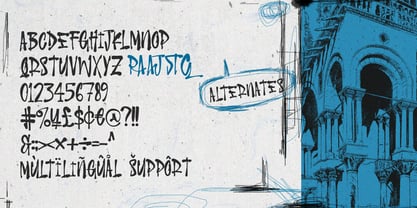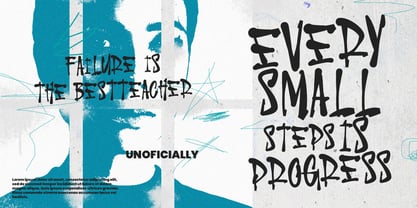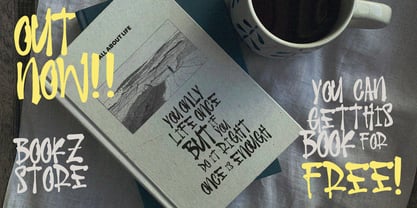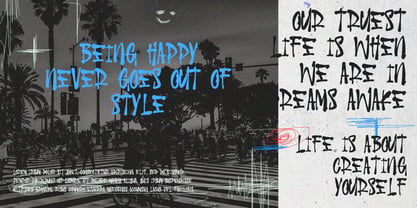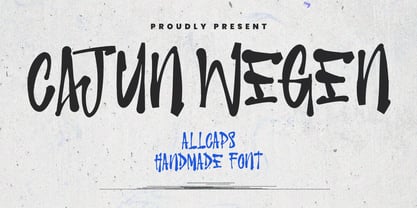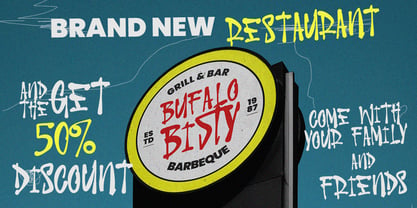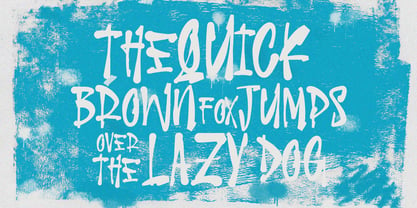
MC Cajun Wegen
by Maulana Creative
The MC Cajun Wegen Font Family was designed by Gilang Maulana and published by Maulana Creative. MC Cajun Wegen contains 1 styles. More about this family
Cajun Wegen is a all caps handmade brush font handwritten. With fun character with a bit of ligatures and alternative. To give you an extra creative work Cajun Wegen font support multilingual more than 100+ language. This font is good for logo design, Social media, Movie Titles, Books Titles, a short text even a long text letter and good for your secondary text font with sans or serif. Make a stunning work with Cajun Wegen all caps handmade font.
Designers: Gilang Maulana
Foundry: Maulana Creative